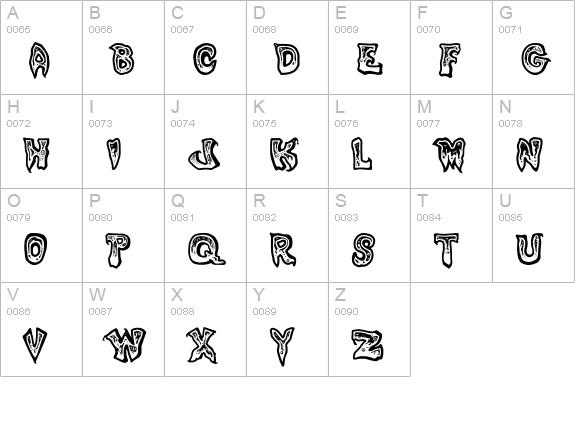
Phlegmy Kilmister Font Details
Phlegmy Kilmister font is a bold and quirky typeface that exudes a unique sense of personality and character. With its uneven strokes and distinctive letterforms, this font captures the essence of an edgy and rebellious aesthetic. Designed with a playful yet grungy style, Phlegmy Kilmister font is perfect for projects that require a touch of unconventional charm. Whether you're designing a poster for a rock concert or creating eye-catching headlines for a magazine, this font is sure to make a statement. One of the best things about Phlegmy Kilmister font is that it is available for free download at FontsMarket.com. This means that you can easily access and use this font in your design projects without any cost. It's a fantastic opportunity to add a touch of creativity and uniqueness to your work, without breaking the bank. Phlegmy Kilmister font is not your ordinary typeface. It's a font that stands out from the crowd, allowing you to create designs that are bold, daring, and full of personality. So why settle for ordinary when you can have extraordinary? Download Phlegmy Kilmister font today and let your creativity run wild!